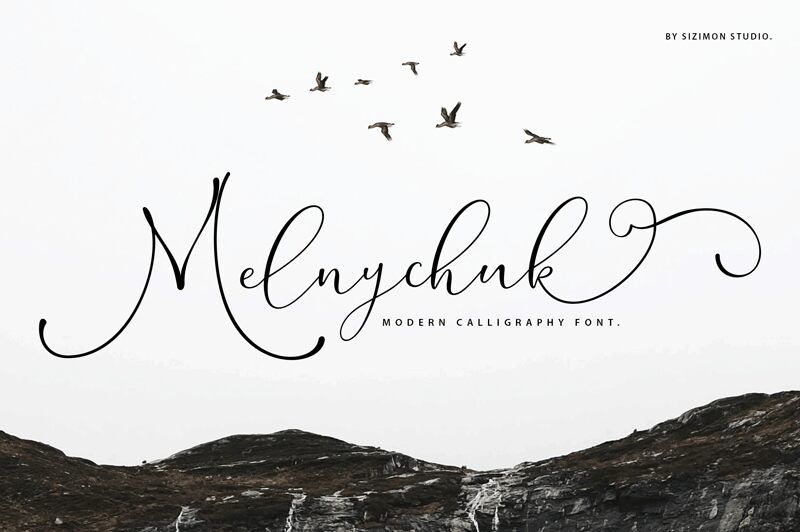
Melnychuk font, designed by Sizimon.id, is an exquisite calligraphy typeface that exudes elegance and grace. With its semi-light weight, it strikes a perfect balance between delicate strokes and readability. This font is ideal for creating stunning wedding invitations, sophisticated branding materials, luxurious packaging designs, and captivating social media graphics. Whether you're embarking on a romantic project or aiming to add a touch of refined beauty to your creative ventures, Melnychuk font will effortlessly elevate your work with its timeless charm.